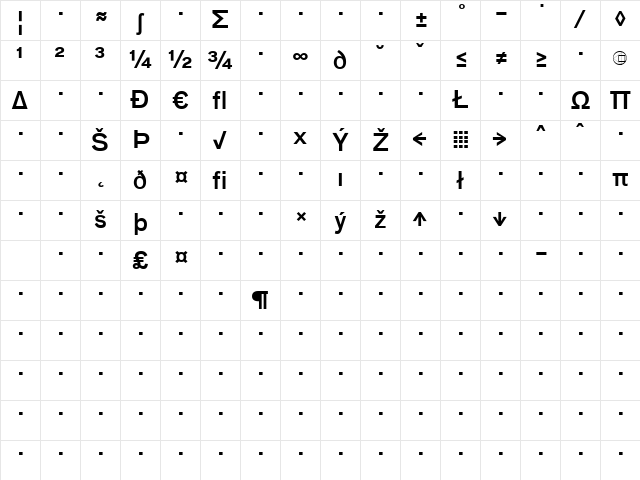
Complete BauTF-MediumExpert Regular glyph index. Displaying only characters natively supported by BauTF-MediumExpert Regular font.
BauTF-MediumExpert is a composed and adaptable typeface that performs quietly and consistently across a wide range of design contexts.